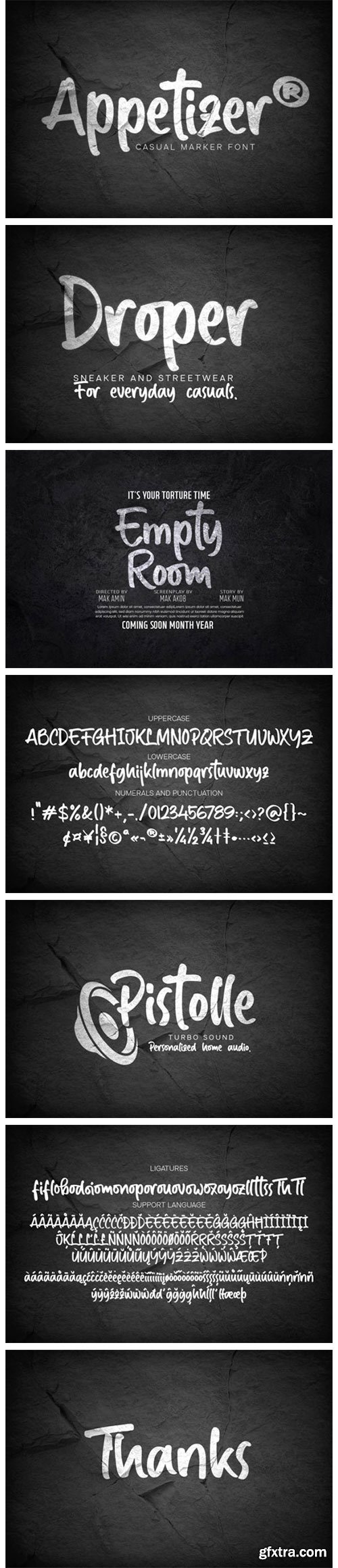
Appetizer Font
Appetizer is a simple and trendy handwritten font. Its natural and unique style makes it incredibly fitting to a large pool of designs. The only limit is your imagination!